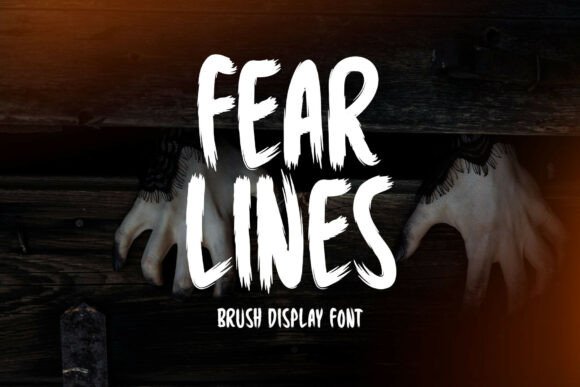
Fear Lines Font: A Striking Brush Display Typeface for Impactful Designs
In the world of typography, fonts play a crucial role in conveying the tone and personality of a design. Among the numerous font styles available, brush display typefaces have gained immense popularity for their unique, handcrafted look. One such font that has been making waves in the design community is Fear Lines Font. In this article, we’ll dive into the features, benefits, and applications of Fear Lines Font, exploring why it’s an excellent choice for designers seeking to add an artistic, impactful touch to their creations.
What is Fear Lines Font?
Fear Lines Font is a striking brush display typeface characterized by its expressive, handcrafted appearance. Its bold strokes and textured style make it an ideal choice for designs that require a distinctive, eye-catching look. The font’s unique blend of elegance and ruggedness lends itself well to various applications, from digital and print materials to artistic and creative projects.
Key Features of Fear Lines Font
- Expressive, Handcrafted Look: Fear Lines Font boasts a unique, handcrafted appearance that adds a personal touch to any design.
- Bold Strokes: The font’s bold strokes create a striking visual impact, making it perfect for designs that require attention-grabbing typography.
- Textured Style: The font’s textured style adds a layer of depth and visual interest, giving designs a more dynamic look.
- Versatility: Fear Lines Font is suitable for both digital and print applications, making it a versatile choice for designers.
Applications of Fear Lines Font
Fear Lines Font is an excellent choice for a wide range of design applications, including:
- Stationery: Add a personal touch to your stationery designs, such as business cards, letterheads, and envelopes.
- Apparel: Create eye-catching apparel designs, including t-shirts, hoodies, and hats.
- Music Artwork: Use Fear Lines Font to create striking music artwork, such as album covers, posters, and flyers.
- Posters: Design attention-grabbing posters for events, concerts, or advertising campaigns.
- Web Graphics: Enhance your web graphics, such as social media posts, banners, and headers, with the font’s bold, textured style.
- Photo Frames: Add a creative touch to your photo frames, making them stand out with the font’s unique appearance.
Benefits of Using Fear Lines Font
Using Fear Lines Font in your designs offers several benefits, including:
- Unique Visual Identity: The font’s distinctive appearance helps create a unique visual identity for your brand or design.
- Emotional Connection: The font’s expressive, handcrafted look can evoke emotions and create a connection with your audience.
- Versatility: Fear Lines Font can be used across various design applications, making it a valuable addition to your font library.
- Time-Saving: The font’s bold, textured style can save you time in the design process, as it eliminates the need for extensive customization.
Tips for Using Fear Lines Font Effectively
To get the most out of Fear Lines Font, consider the following tips:
- Use it Sparingly: Use the font sparingly to create emphasis and visual interest, rather than overwhelming the design.
- Pair it with Complementary Fonts: Pair Fear Lines Font with complementary fonts to create a harmonious and balanced design.
- Experiment with Colors: Experiment with different colors to find the perfect match for your design and brand.
- Pay Attention to Legibility: Ensure that the font is legible, especially when used in smaller sizes or on digital screens.
Fear Lines Font is a striking brush display typeface that offers a unique, handcrafted look, making it an excellent choice for designers seeking to add an artistic, impactful touch to their creations. Its bold strokes, textured style, and versatility make it suitable for a wide range of design applications. By incorporating Fear Lines Font into your design workflow, you can create visually stunning designs that capture attention and evoke emotions.